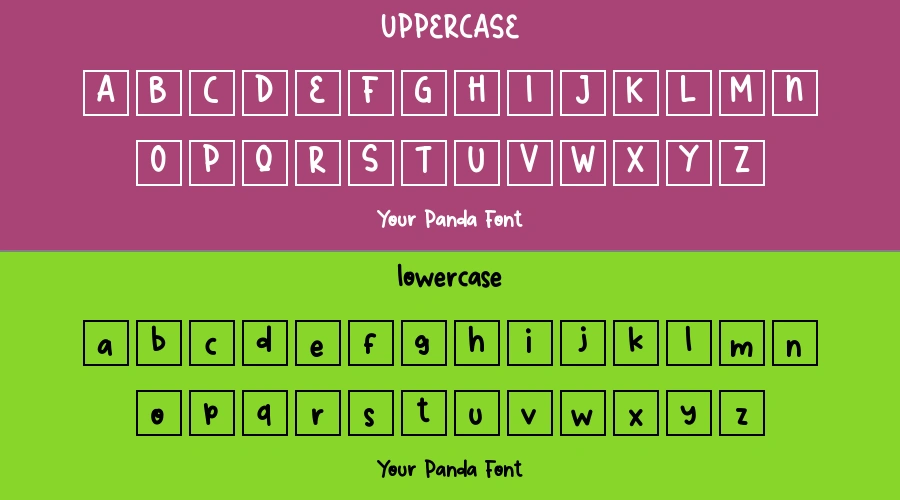
About Your Panda Font
Designed with precision, Your Panda Font merges confident strokes with recall value in every character. This versatility makes it particularly effective for brand identities, where clarity and technical mastery directly impact communication quality. Each letterform demonstrates meticulous craftsmanship.
Technical excellence shines through elements like ligatures and discretionary ligatures, enhancing typographic versatility. In campaign headers settings, Your Panda Font proves its worth through superior numerical alignment. The thoughtful execution of spur details and market positioning ensures professional results.